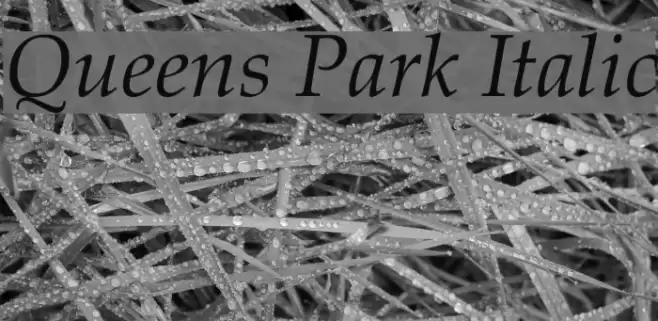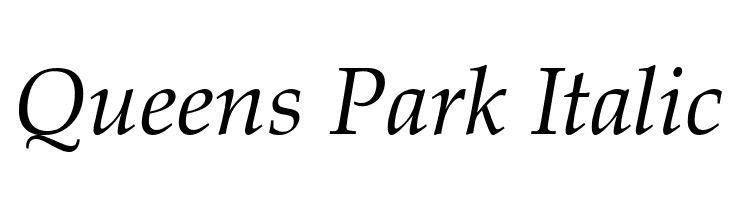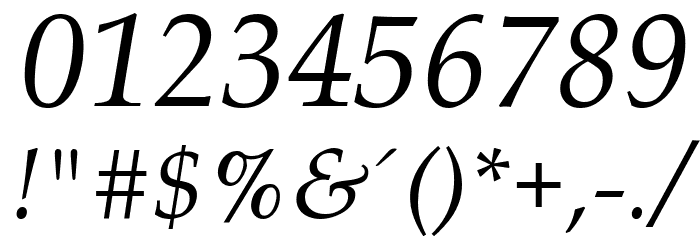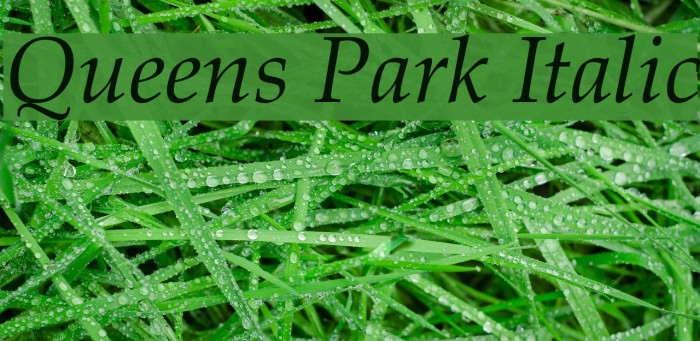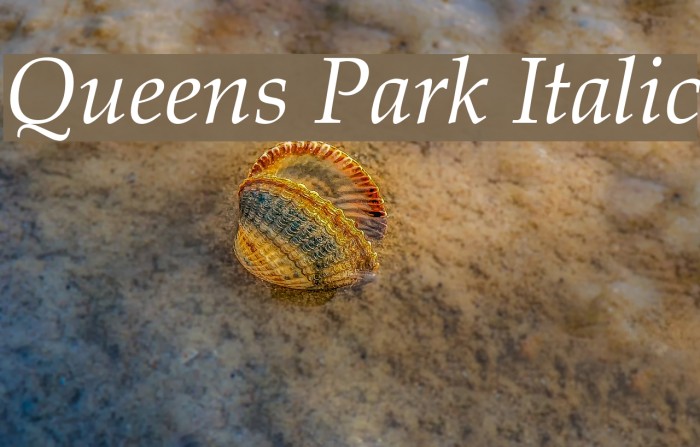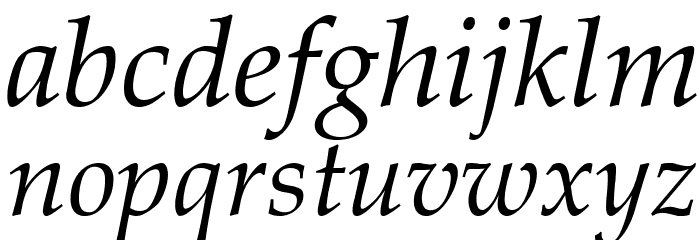
Queens Park Italic Font
Queens Park Italic Description
This elegant serif font features a classic italic style with smooth, flowing curves and a refined appearance. The letters are slightly slanted, adding a sense of motion and sophistication. The uppercase characters are well-proportioned, while the lowercase letters maintain a consistent style with gentle curves and subtle serifs. The numerals are clear and distinct, complementing the overall aesthetic. Special characters are thoughtfully designed, maintaining the font's graceful look. This font exudes a timeless elegance, making it suitable for a variety of formal and creative applications.
An elegant italic serif font with smooth curves and a refined, classic style from Uncategorized fonts.
- Proposed Projects: Ideal for wedding invitations, formal documents, elegant branding, and editorial design.
- Overall Style: Classic